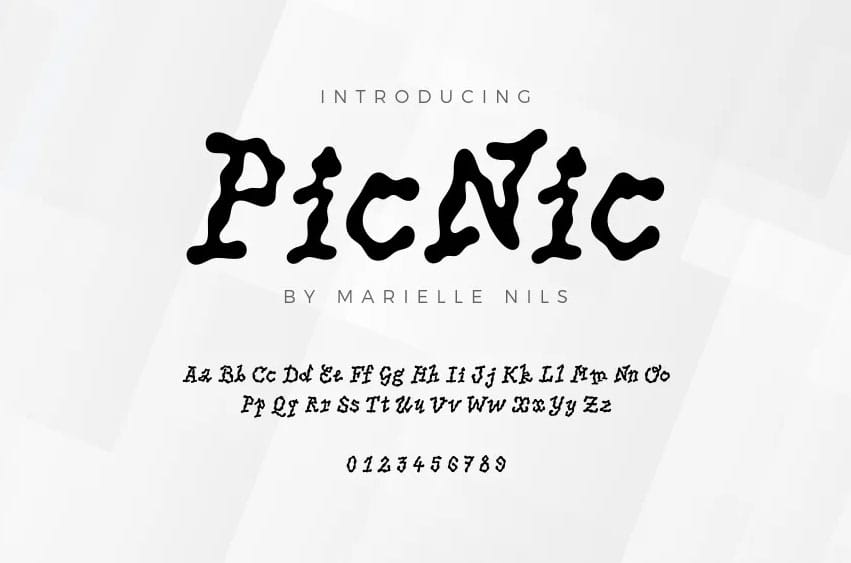
PicNic Font is a distinctive typeface that conveys an organic feel. With its contextual ligatures and inclusive ligatures, PicNic Font automatically substitutes for the midpoint, enhancing its visual appeal. Additionally, the inclusive ligatures cater to the French language, making it an ideal choice for designers and creatives who work with French content.
Marielle Nils created this unique display font, which stands out for its fresh, contemporary style. With PicNic Font, designers can add a touch of natural charm to their projects, making it an excellent choice for branding, packaging, and advertising.